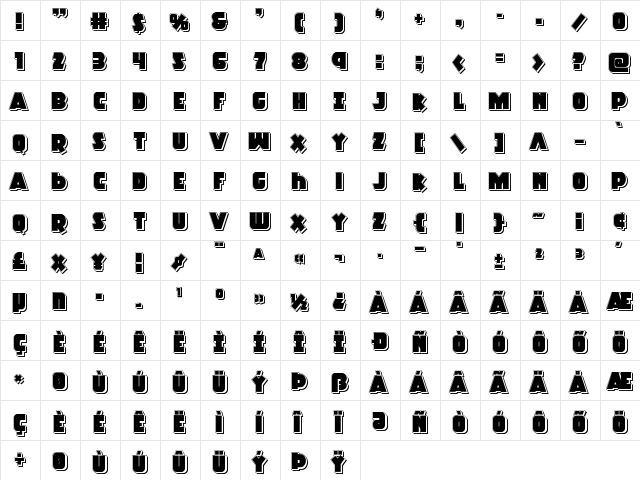
Racket Squad Punch Regular
Design Context for Racket Squad Punch Typeface
Racket Squad Punch is a composed and adaptable typeface that performs quietly and consistently across a wide range of design contexts.